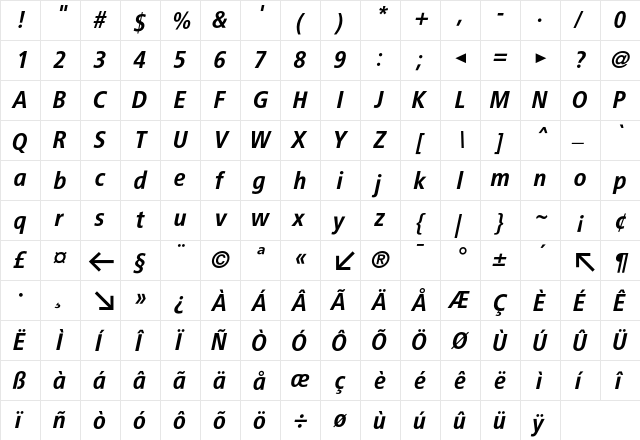
BVGHfettKursiv Regular
Design Context for BVGHfettKursiv Typeface
BVGHfettKursiv offers clean, dependable letterforms without strong stylistic allegiance, making it a practical choice for designers who need flexibility. The slanted form adds forward momentum and visual energy.
Pro Tip: Use BVGHfettKursiv for emphasis, pull quotes, and subheadings where its slanted energy can add rhythm to the layout.